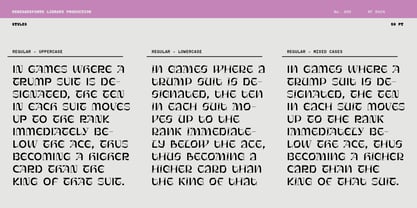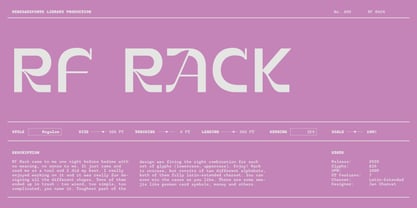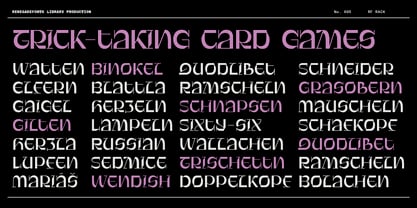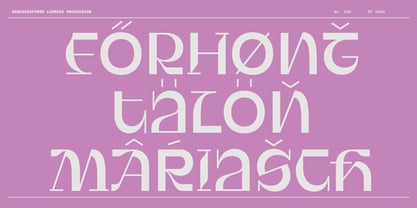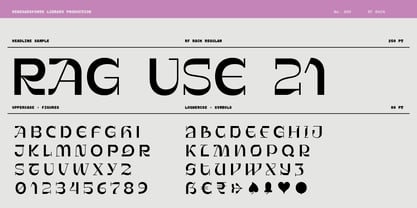
RF Rack
von Renegade Fonts
Die Schriftfamilie RF Rack wurde von Jan Charvát entworfen und von Renegade Fonts veröffentlicht. RF Rack enthält 1 Stile. Mehr über diese Familie
RF Rack came to me one night before bedime with no meaning, no sense to me. It just came and used me as a tool and I did my best. I really enjoyed working on it and it was really fun designing all the different shapes. Tens of them ended up in trash - too wierd, too simple, too complicated, you name it. Toughest part of the design was fining the right combination for each set of glyphs (lowercase, uppercase). Enjoy! Rack is unicase, but consits of two different alphabets, both of them fully latin-extended charset. You can even mix the cases as you like. Also few emojis like german card symbols, money, eyes and others.
Designer: Jan Charvát
Foundry: Renegade Fonts